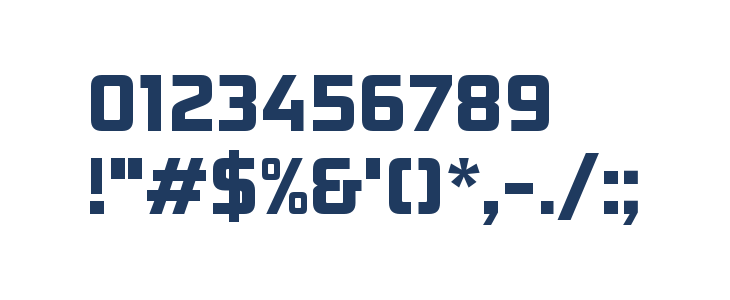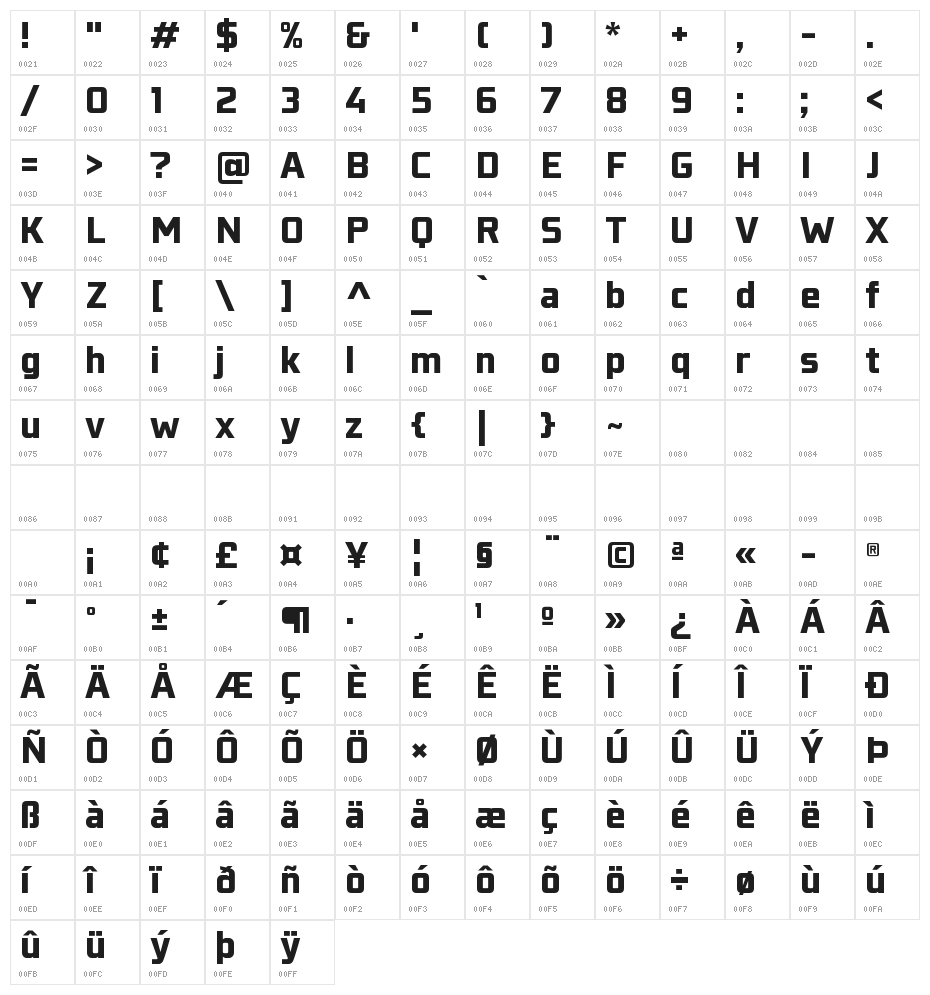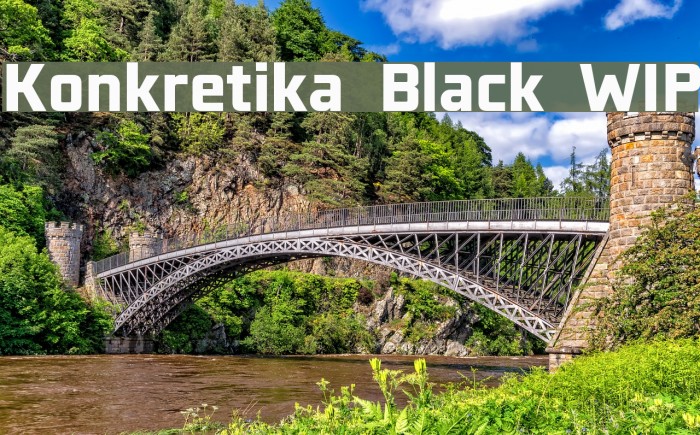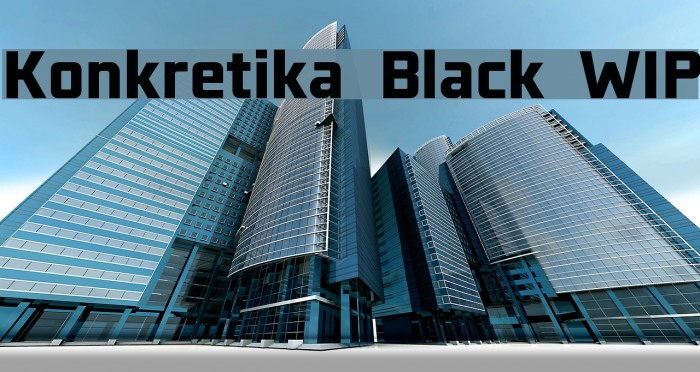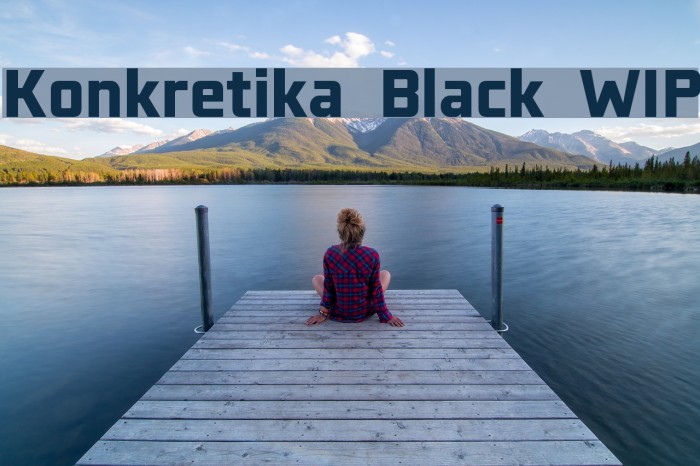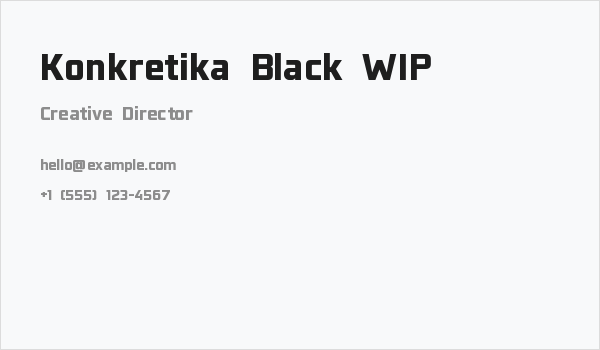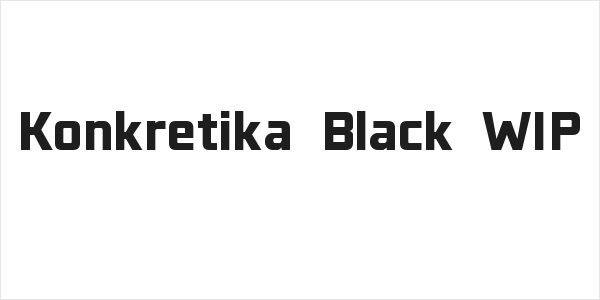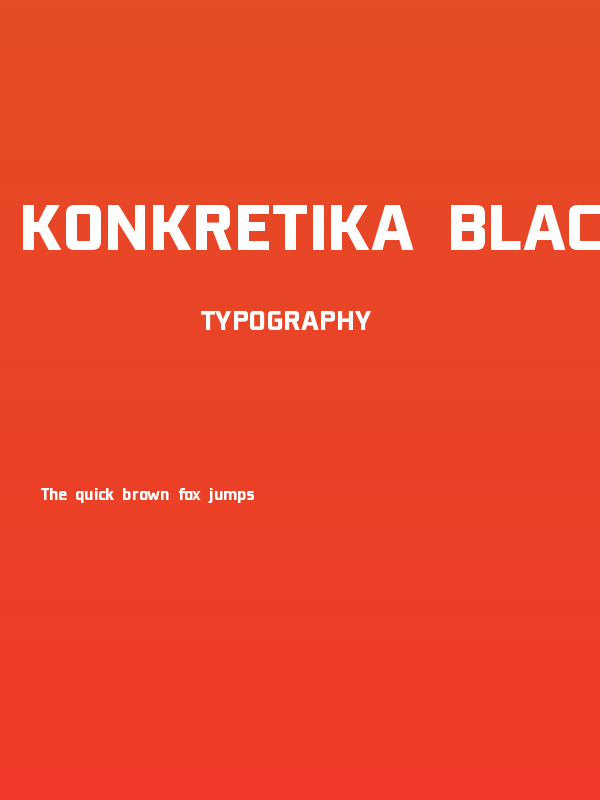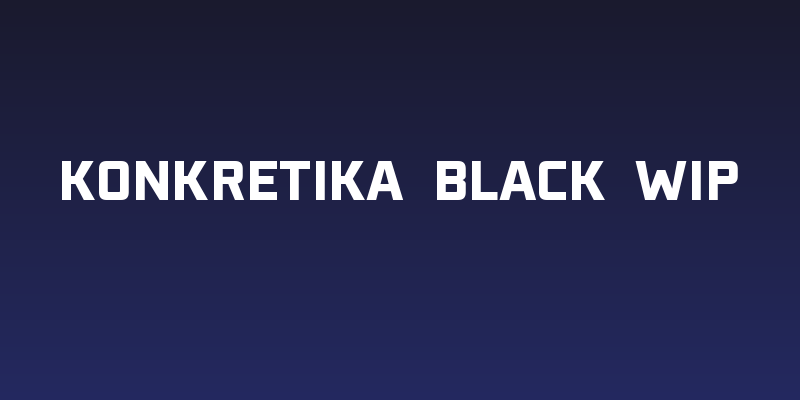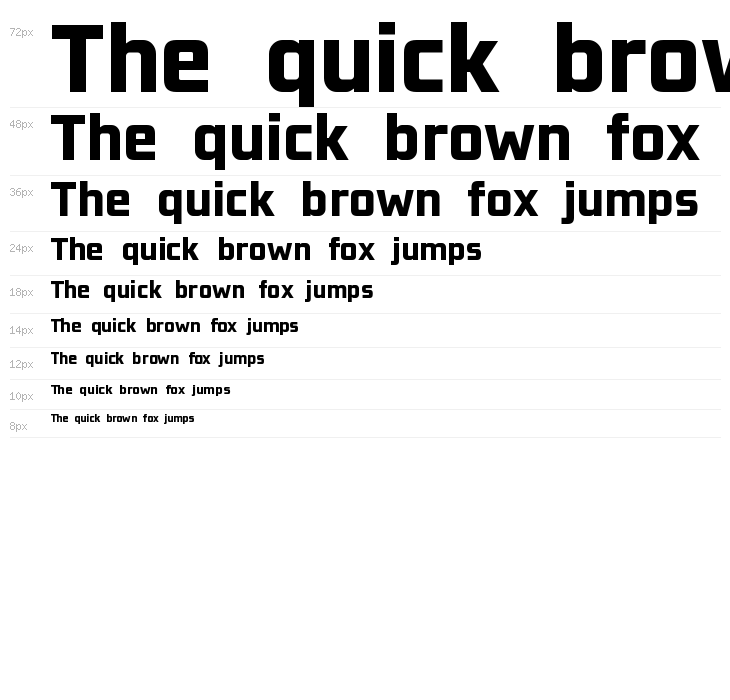
Konkretika Black WIP Font
Konkretika Black WIP Description
This typeface exhibits a strong, bold presence with its thick, uniform strokes and geometric structure. The characters are designed with a modern aesthetic, featuring sharp angles and clean lines that convey a sense of stability and confidence. The uppercase and lowercase letters maintain a consistent weight, enhancing readability while maintaining a striking visual impact. The numerals and special characters are crafted to match the boldness of the alphabet, ensuring a cohesive look across all text elements. This font is ideal for making a statement, whether in print or digital media.
| Proposed Projects | This font is perfect for branding projects, headlines, posters, and any design work that requires a strong visual impact. |